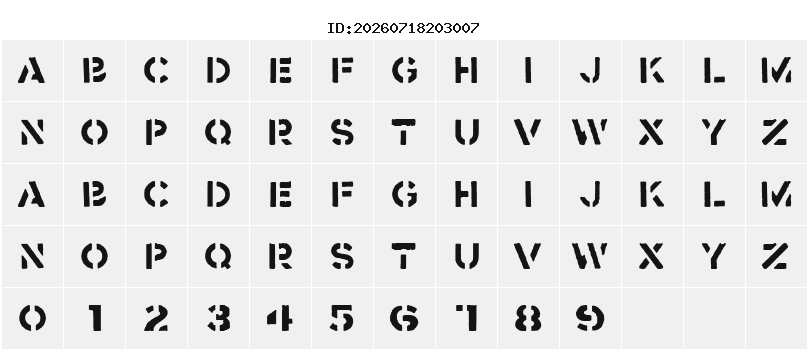
Crass Preview
• Font Name: Crass
• Full Font Name: Crass
About Crass.ttf
Crass.ttf is a modern, elegant sans-serif font designed for ultimate readability and visual harmony. Perfect for branding, headlines, web design, and print materials.